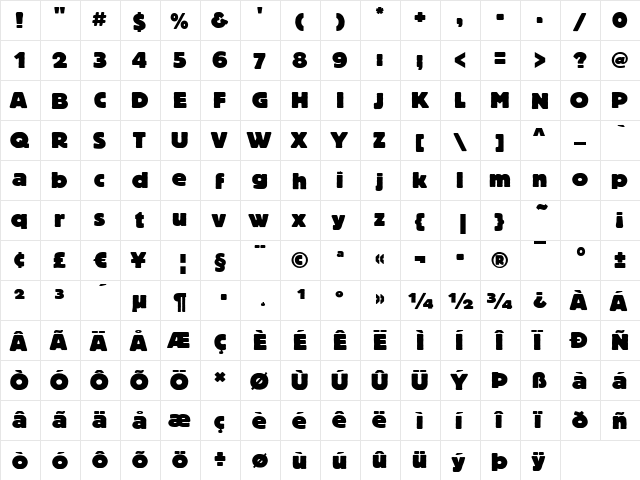
Boulder Bold Font Preview
Boulder Bold
Boulder Bold Font Details
Design Context for Boulder Typeface
Boulder is a composed and adaptable typeface that performs quietly and consistently across a wide range of design contexts. The heavy weight commands attention and anchors typographic hierarchies.
Pro Tip: Pair Boulder with a font of contrasting weight or personality to build a more expressive typographic hierarchy.